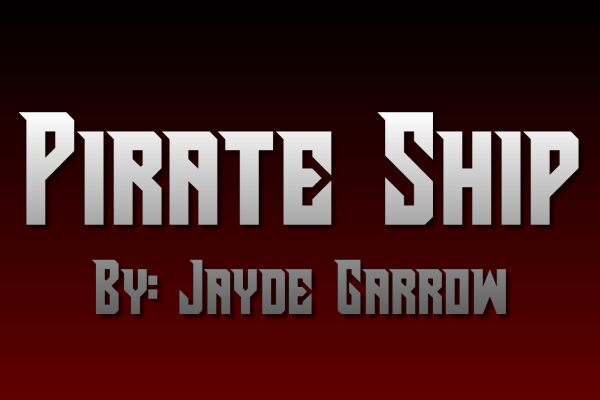
Pirate Ship
Pirate Ship is a bold, techno-inspired display font that commands attention with its striking letterforms. Designed by Jayde Garrow, this font exudes a sense of power and adventure, capturing the essence of the high seas. The condensed width lends a sense of urgency and momentum, while the thick, unyielding strokes convey an air of ruggedness and strength.
Pirate Ship is a versatile font that can enhance a wide range of design projects, from album covers and movie posters to gaming interfaces and maritime-themed branding. Its distinct aesthetic makes it a compelling choice for designers seeking to create a bold, captivating visual impact. Whether used for headline text or as a decorative accent, Pirate Ship is a font that demands to be noticed, inviting the viewer to set sail on a thrilling typographic journey.